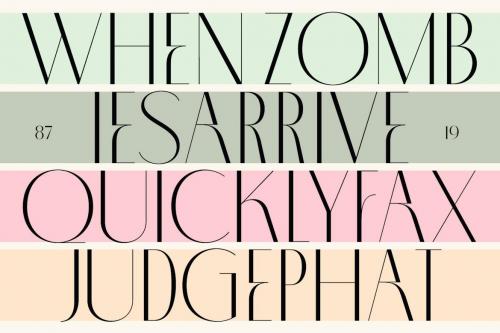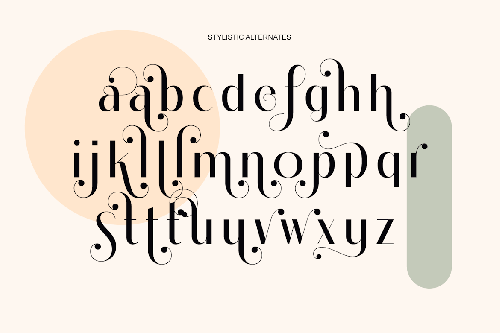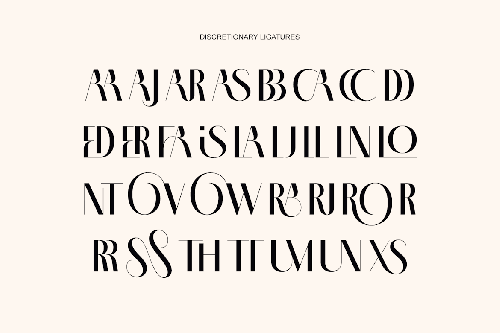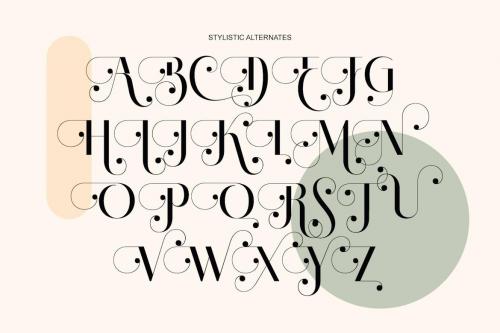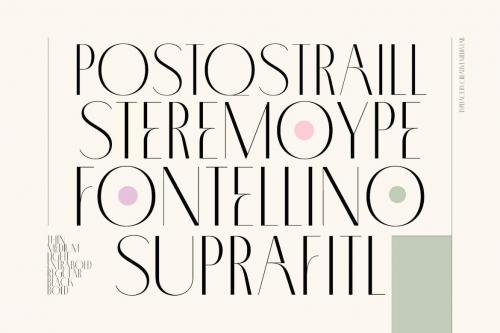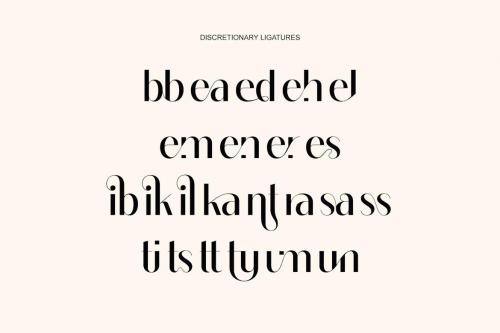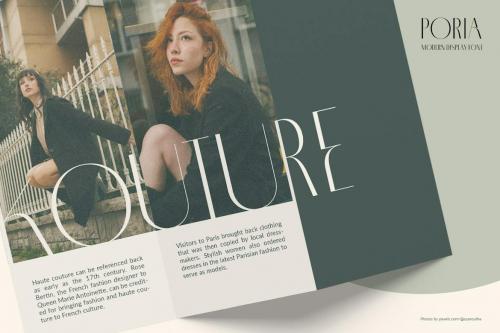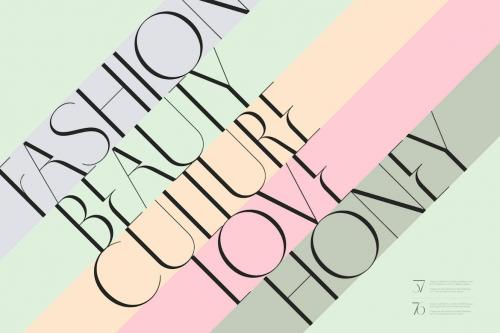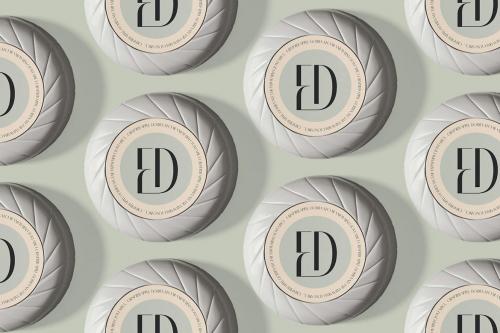
破肆 - 现代 branding logo 字体
Poria - Modern Branding Logo font
Poria is a modern font with seven weight options, beautiful alternatives and dozens of unique monogram ligatures. The hallmark of Poria is the letter O which is wide compared to the other characters, so it becomes modern and attractive. Poria is suitable as a logo or title for fashion brands, cosmetics, magazines, and many more.
Poria is a modern font with seven weight options, beautiful alternatives and dozens of unique monogram ligatures. The hallmark of Poria is the letter O which is wide compared to the other characters, so it becomes modern and attractive.
Poria is suitable as a logo or title for fashion brands, cosmetics, magazines, and many more.